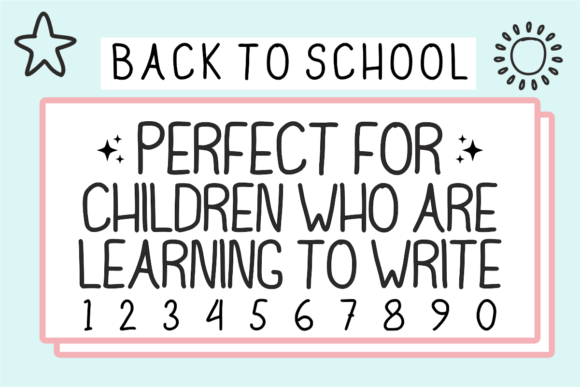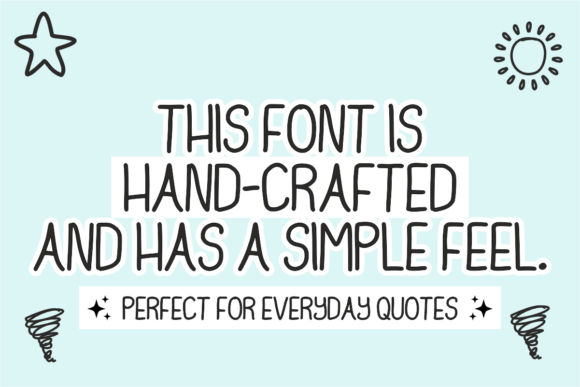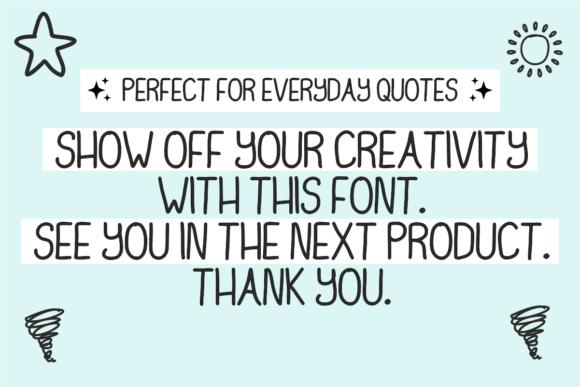
Fancy Doodle Font: Elevate Your Designs with a Hand-Crafted Doodle Theme
Are you a designer, crafter, or DIY enthusiast looking for a unique and versatile font to add a personal touch to your creations? Look no further than the Fancy Doodle Font, a hand-crafted font with a doodle theme that’s perfect for a wide range of projects. In this article, we’ll explore the features and benefits of Fancy Doodle, and show you how it can enhance your designs and take your creativity to the next level.
What is Fancy Doodle Font?
Fancy Doodle is a carefully crafted font with a playful doodle theme that’s perfect for adding a touch of whimsy and personality to your designs. With its unique and hand-drawn style, this font is sure to stand out from the crowd and make your creations shine. Whether you’re working on a logo, greeting card, mug, t-shirt, or any other project, Fancy Doodle is a fantastic addition to your font library.
Features of Fancy Doodle Font
So, what makes Fancy Doodle so special? Here are just a few of its key features:
- Hand-crafted design: Each letter and character in Fancy Doodle has been carefully drawn by hand, giving the font a unique and personal touch.
- Doodle theme: The font’s doodle theme is perfect for adding a playful and creative touch to your designs.
- Versatile: Fancy Doodle can be used for a wide range of projects, from logos and branding to greeting cards, invitations, and more.
Uses for Fancy Doodle Font
So, what can you use Fancy Doodle for? The possibilities are endless! Here are just a few ideas to get you started:
- Logos and branding: Use Fancy Doodle to create a unique and memorable logo for your business or brand.
- Greeting cards and invitations: Add a personal touch to your greeting cards and invitations with Fancy Doodle’s playful and creative style.
- Mugs and t-shirts: Use Fancy Doodle to create fun and quirky designs for mugs, t-shirts, and other apparel.
- Comics and illustrations: Fancy Doodle is perfect for adding a touch of personality to your comics, illustrations, and other artwork.
- Crafts and DIY projects: Use Fancy Doodle to add a creative touch to your crafts and DIY projects, such as scrapbooking, journaling, and more.
Benefits of Using Fancy Doodle Font
So, why should you choose Fancy Doodle for your designs? Here are just a few benefits of using this versatile and creative font:
- Adds personality: Fancy Doodle adds a unique and personal touch to your designs, setting them apart from the crowd.
- Enhances creativity: The font’s playful and creative style inspires creativity and imagination, helping you to think outside the box.
- Versatile: Fancy Doodle can be used for a wide range of projects, making it a valuable addition to your font library.
In conclusion, Fancy Doodle Font is a hand-crafted font with a doodle theme that’s perfect for adding a touch of personality and creativity to your designs. With its unique and versatile style, this font is sure to enhance any creation, from logos and greeting cards to mugs and t-shirts, invitations, comics, and more. Whether you’re a designer, crafter, or DIY enthusiast, Fancy Doodle is a fantastic addition to your font library.